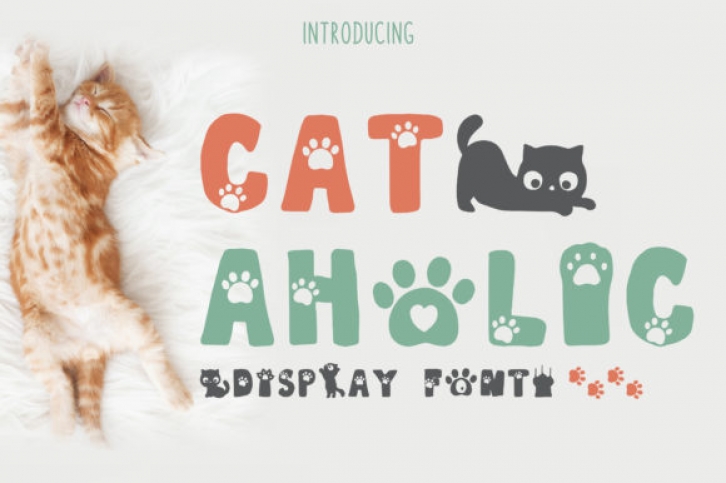
Cat-Aholic is an incredibly cute and whimsical display font. Whether you are using it for cartoon-related designs, children’s games, quotes, titles, brand names, book covers, posters, or just any creation that requires a touch of beauty, this font is a great choice.